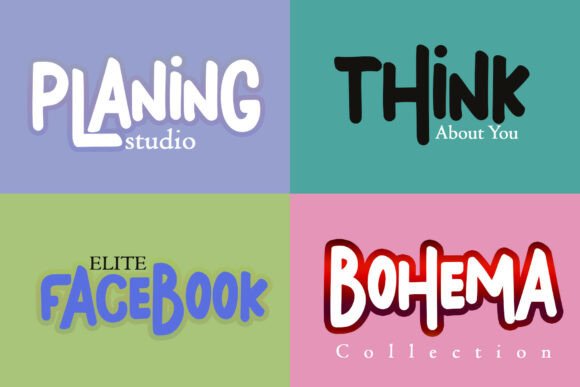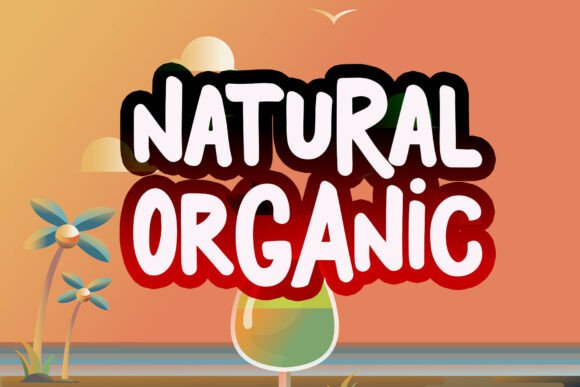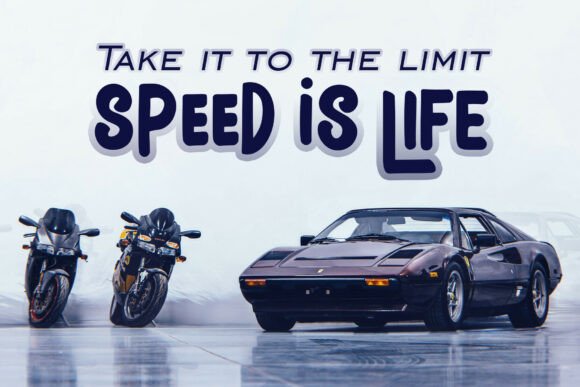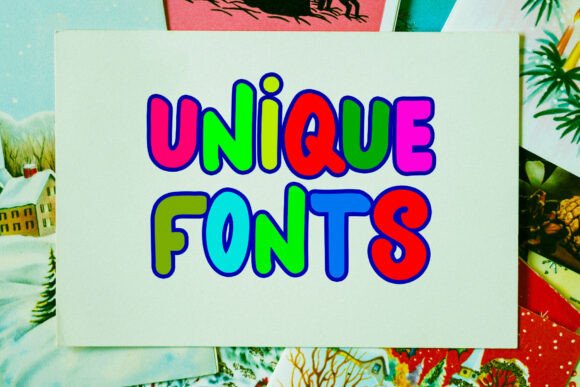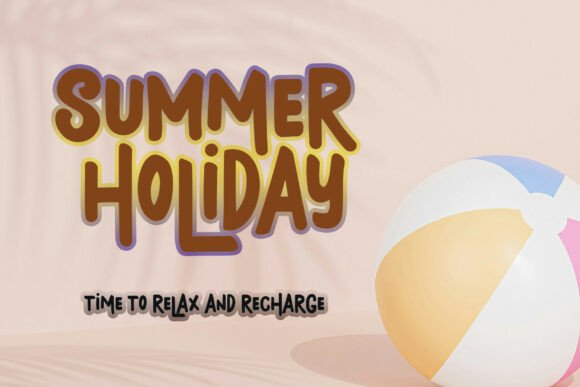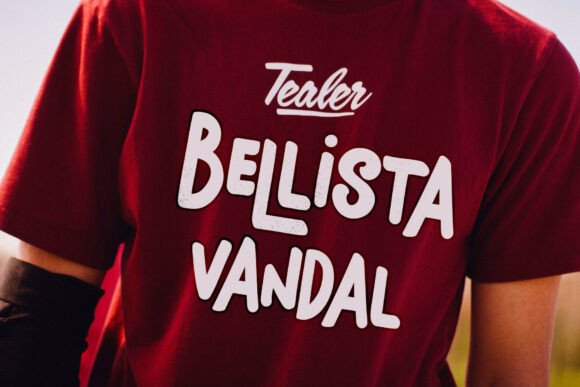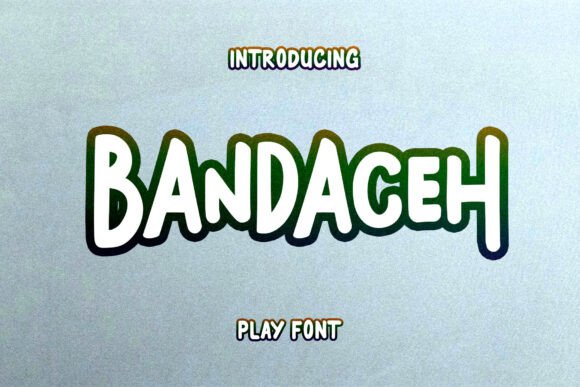
Unleash Your Creativity with Bandaceh Font: The Ultimate Display Typeface
Are you tired of using the same old fonts for your design projects? Look no further! Introducing Bandaceh Font, a game-changing display typeface that is sure to captivate your interest and take your creations to the next level. This distinctive font is designed to inject a sense of cool into any project, making it perfect for designers, crafters, and anyone looking to add a fashionable edge to their work.
A Versatile Wonder for Endless Design Possibilities
Bandaceh Font is more than just a typeface – it’s a design essential that can elevate your work and make a massive impact. Whether you’re drafting logos, creating striking titles, establishing brand names, designing apparel, developing stickers, or undertaking crafts, this modern, trend-setting font is the perfect tool for innovative design projects. Its versatility knows no bounds, and it can effortlessly cater to a wide range of aesthetics, from minimalist to bold and eclectic.
Why Choose Bandaceh Font?
• Unique and Distinctive: Bandaceh Font boasts a one-of-a-kind design that sets it apart from other typefaces. Its unique character will add a touch of personality to your designs and make them stand out from the crowd.
• Modern and Trendy: This font is designed to keep up with the latest design trends. Its modern and trendy vibe will ensure that your designs look fresh and contemporary.
• Fashionable Edge: Bandaceh Font adds a fashionable edge to any project, making it perfect for designers who want to create stylish and sophisticated designs.
• Endless Potential: The font’s versatility means that it can be used for a wide range of design projects, from branding and advertising to crafting and DIY projects.
Bandaceh Font is a must-have for designers and crafters who want to take their work to the next level. Whether you’re a professional designer or a hobbyist, this font will provide you with the creative freedom to experiment with new ideas and push the boundaries of your design skills.
For designers, Bandaceh Font is perfect for:
• Creating striking titles and headings
• Designing logos and brand identities
• Developing advertising materials and marketing collateral
For crafters, Bandaceh Font is ideal for:
• Designing custom apparel and accessories
• Creating stickers and decals
• Undertaking DIY projects and crafts
Tips for Using Bandaceh Font
To get the most out of Bandaceh Font, here are some tips to keep in mind:
• Experiment with different sizes and colors: Bandaceh Font looks great in a variety of sizes and colors. Experiment with different combinations to find the one that works best for your design.
• Pair it with other fonts: Bandaceh Font can be paired with other fonts to create a unique and interesting design. Try pairing it with a serif font for a bold and modern look.
• Use it for headlines and titles: Bandaceh Font is perfect for headlines and titles. Use it to add a touch of personality and style to your designs.
In conclusion, Bandaceh Font is a game-changing display typeface that is sure to captivate your interest and take your designs to the next level. Its unique and distinctive design, modern and trendy vibe, and fashionable edge make it perfect for designers and crafters who want to add a touch of personality and style to their work. With its endless potential and versatility, Bandaceh Font is a must-have for anyone looking to elevate their design skills and make a massive impact.